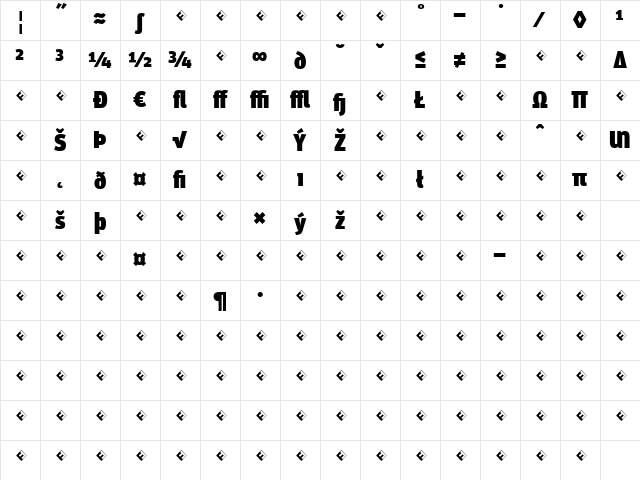
Complete Unit-UltraTFExpert Regular glyph index. Displaying only characters natively supported by Unit-UltraTFExpert Regular font.
Unit-UltraTFExpert is a composed and adaptable typeface that performs quietly and consistently across a wide range of design contexts.
Who designed the Unit-UltraTFExpert Regular font?
This font was published by Erik Spiekermann, Christian Schwartz; published by FontShop International for the FontFont Library. Check the technical specs section for copyright and designer details.